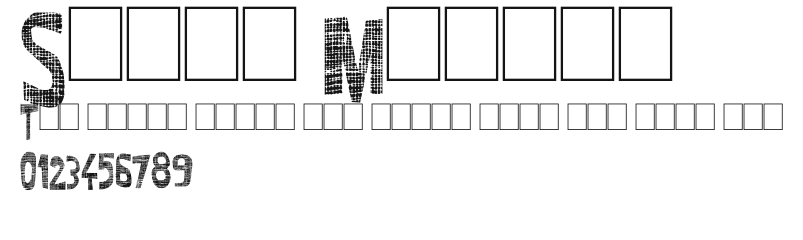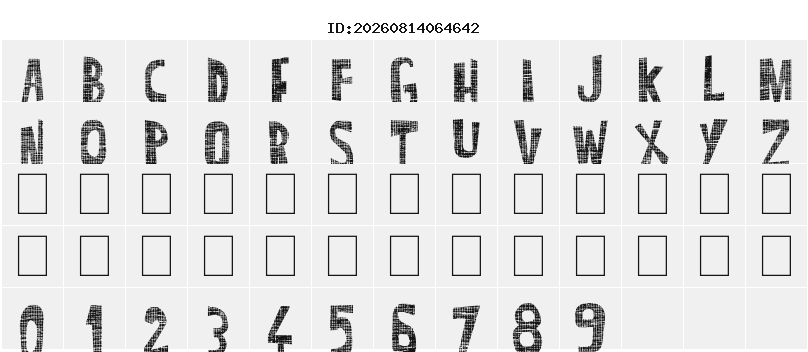
Super Modern Preview
• Font Name: Super Modern
• Description: This font was created using Scanahand from High-Logic.com
About Super Modern.ttf
Super Modern.ttf is a modern, elegant sans-serif font designed for ultimate readability and visual harmony. Perfect for branding, headlines, web design, and print materials.